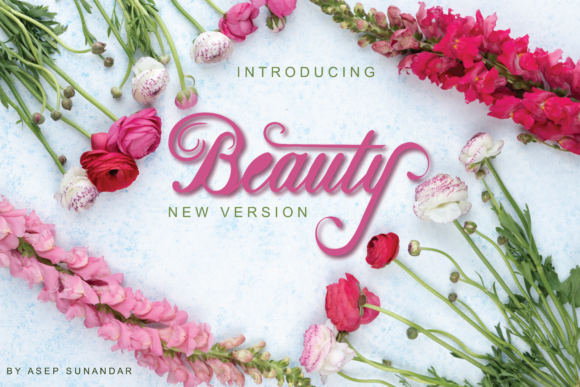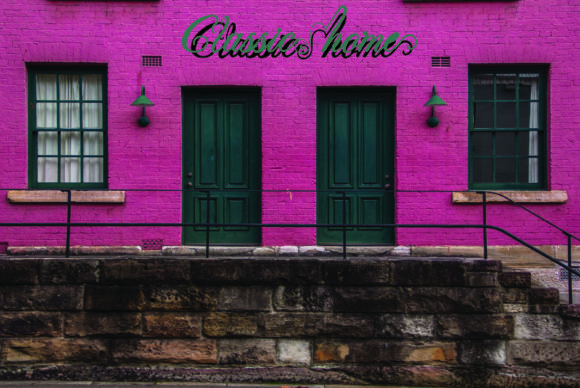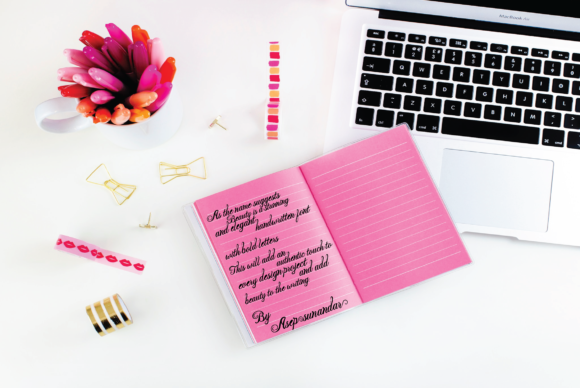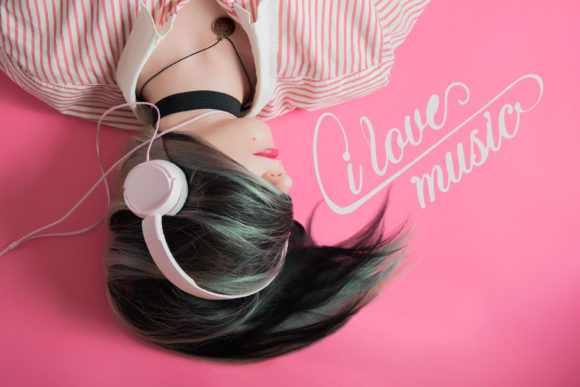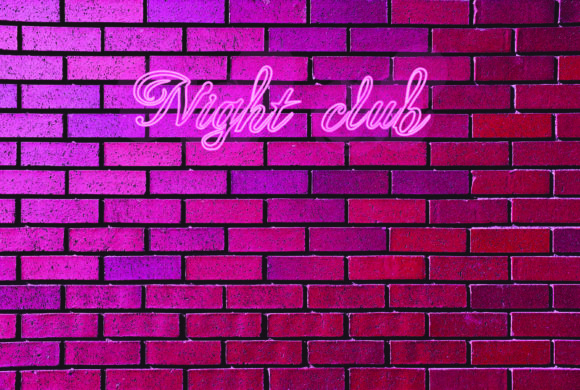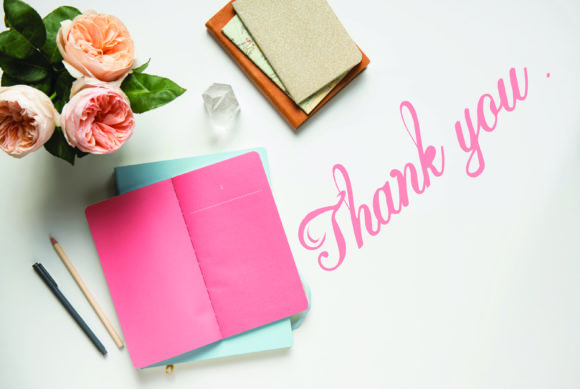
HomeScript FontsBeauty Pink Flowers Font Script Fonts Beauty Pink Flowers Font FacebookXPinterestWhatsApp Beauty Pink Flowers Font Poster 2 Beauty Pink Flowers Font Poster 3 Beauty Pink Flowers Font Poster 4 Beauty Pink Flowers Font Poster 5 Beauty Pink Flowers Font Poster 6 About Beauty Pink Flowers Font As the name suggests, Beauty is a stunning and elegant handwritten font with bold letters. DOWNLOAD NOW People also explored Marquee Christmas Valentine Font Voulentire Font Boostard Signature Font Brickrow Font Floral Font Lemonade Font Bismark Font Aleida Font 304 0 TagsBeauty Pink Flowers Font Previous articleWidaningsih FontNext articleMoriana Font LEAVE A REPLY Cancel reply Comment: Please enter your comment! Name:* Please enter your name here Email:* You have entered an incorrect email address! Please enter your email address here Website: Save my name, email, and website in this browser for the next time I comment. Personal Use Free Avagan Personal Use Free Read more about this font Planet Benson 2 Personal Use Free Read more about this font Yukarimobile Personal Use Free Read more about this font Miracles Personal Use Free Read more about this font BLOG Best Fonts for T-Shirt Design – Top 2025 Picks In 2025, t-shirt design has become more than just fashion—it's a form of self-expression. Whether you're... The 10 Best Handwriting Fonts to Add Personality to Your Designs Modern Sans-Serif Fonts That Brands Love in 2025 Free vs Paid Fonts: Why Investing in Premium Fonts Is Worth It